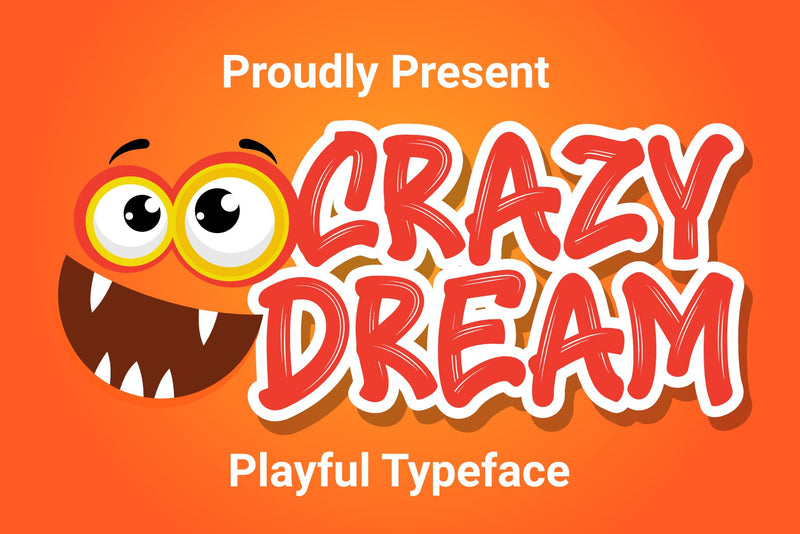
Crazy Dream - Funny Font
Crazy Dream is a brush display font that is designed for designers and other project creators alike in a cute, fun, and colorful style.
Crazy Dream is perfect for use in event design projects, posters, bookshelves, logos, branding, easter, advertisements, titles, and more. and feel free to collaborate on a fun design with this font that will enhance the quality of your designs.